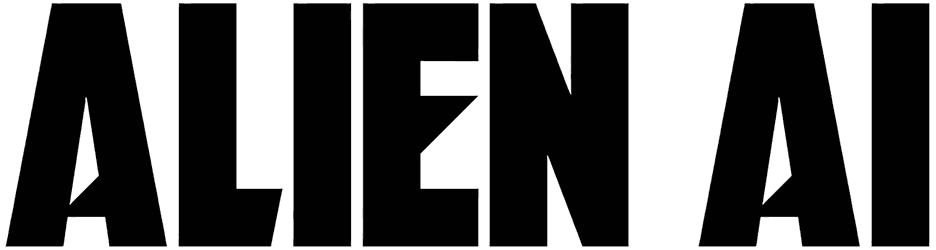
Alien AI Font
Alien AI is a font that visualizes a futuristic vision of the unknown and, with every letter, narrates a world that has yet to be discovered. This sci-fi font can represent a world where technology knows no bounds, and let your imagination fly in new formats such as website design, digital products, or mobile phone packaging.
So don’t let the lack of lowercase letters deter you from having two styles of this techno font because it offers endless possibilities for creative expression.